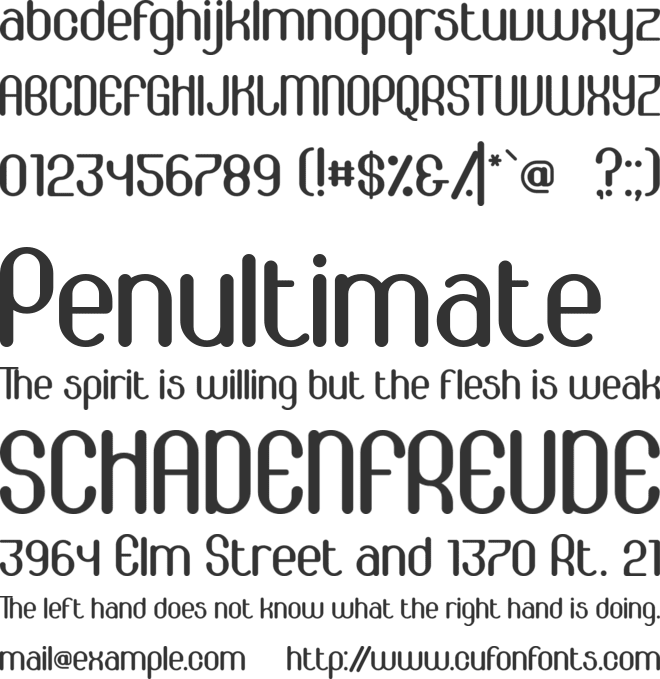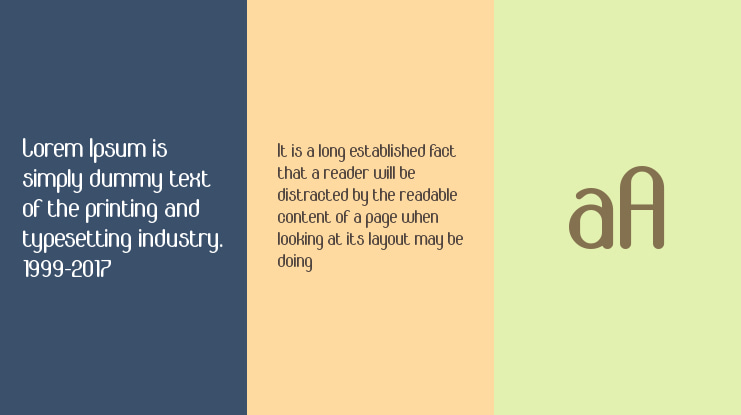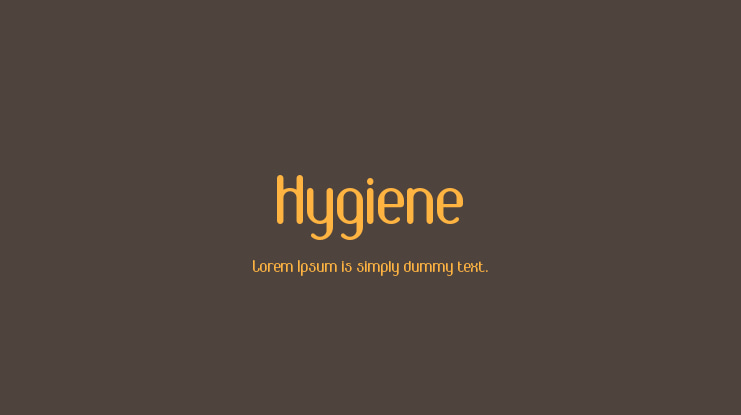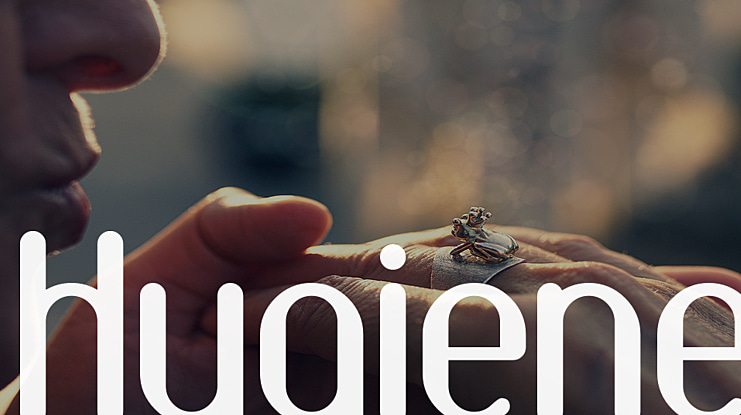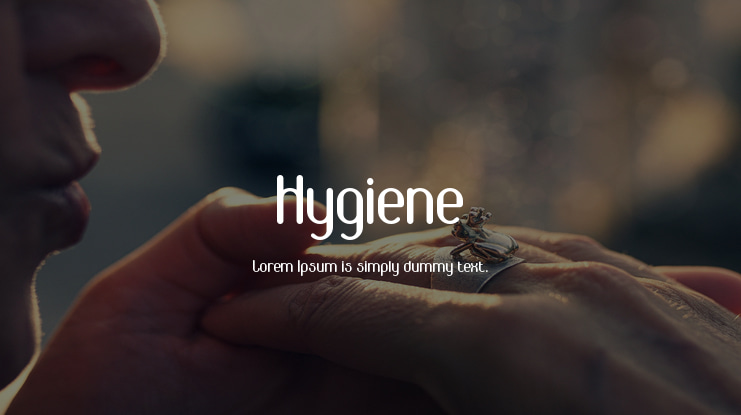
Hygiene Font
Ugh, another bulbous modular font for postmodern bathrooms based on circles. Actually, Hygeine doesn't too bad on the screen at a decent font size (try 18pt for starters), but it works much better printed out on dodgy techno party flyers, you would think. Once again it's bit of a rushed job especially with regard to the symbols. But they're at least they're there on this one.